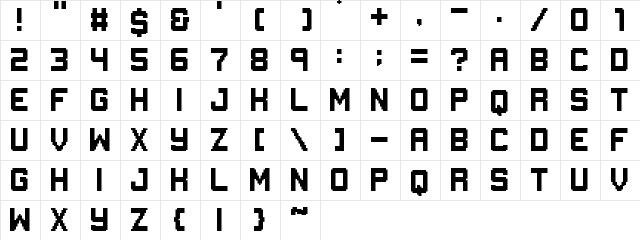
Gameplay Regular
| Designer | GeronimoFonts |
Design Context for Gameplay Typeface
Gameplay is a composed and adaptable typeface that performs quietly and consistently across a wide range of design contexts.